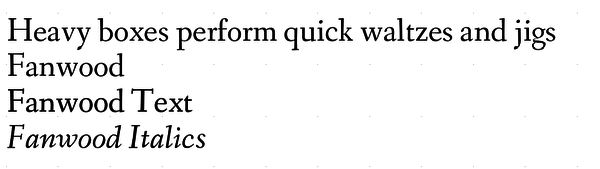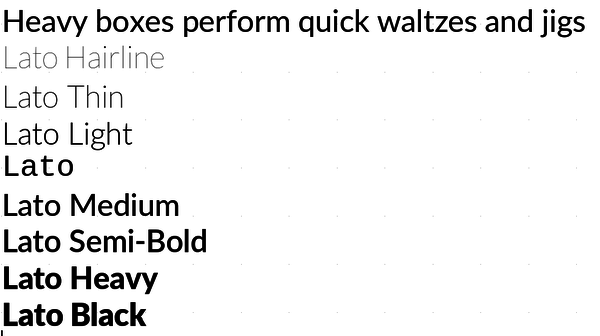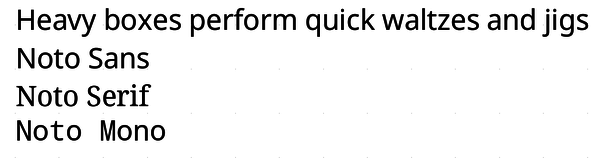
Useful and Innovative Free Fonts
Open Source Fonts
ByIf you are looking for a replacement for a proprietary font, open source fonts offer plenty of options.
Collecting fonts used to be expensive. The average font family cost several hundred dollars, which meant that you had to be selective. That changed overnight with the rise of open source fonts. Contrary to conventional wisdom, talented designers were perfectly willing to release their designs under a free license and to work in teams.
Today, there are still thousands of proprietary fonts for every free font. However, that still leaves hundreds of free-licensed fonts to choose from. Some are replicas of popular fonts or revivals of older designs, while others are original designs. The best free-licensed fonts can be as useful and innovative as any proprietary font. The days when “free fonts” were synonymous with “cheap and shoddy” are now a decade in the past. Below are some examples of the diversity that is available.
Fanwood
Fanwood (Figure 1) is designed by the prolific free font designer Barry Schwartz. Schwartz implies that Fanwood is inspired by Rudolph Ruzicka’s Fairfield, but it also bears a close resemblance to Eric Gill’s Joanna. In fact, when I moved to free fonts, I replaced Joanna with Fanwood as my branding font.
Like Joanna, Fanwood is a small, tight font. With Fanwood, 13 pages of Times New Roman or Liberation Serif convert to 10 pages of text. Yet despite its character size, Fanwood remains highly readable. Like Joanna, it includes one of the most beautiful italics available. Fanwood’s only drawback is that computers seem unable to display its kerning properly – on a screen some letters seem oddly spaced. Fortunately, the problem does not appear on a printed page.
Fanwood Text is also available; it appears darker on the page -- too dark on a printout without adjusting the line spacing. However, Fanwood Text works well on e-readers, which is its intended use.
Frederick Goudy Fonts
Frederick Goudy was the most influential American font designer in the early 20th century. Unfortunately, for some reason, his typefaces have largely fallen out of fashion, apart from a few fonts loosely based on his designs that include his name in theirs. This is a shame, because Goudy’s designs include many sturdy, practical fonts -- ones that are ideal for any large body of text.
Free font designer Barry Schwartz, who also created Fanwood and Prociono, has made something of a career of releasing versions of Goudy’s work, changing the original names to comply with licensing terms. Goudy Bookletter 1911 is based on Goudy’s Kennerley Old Style and features characters that fit together so well that no kerning is necessary. Except for the lowercase “t,” ascenders are tall, making for easy reading. It is easy to see why Schwartz thought this font worth reviving.
Schwartz’s Linden Hill is based on Goudy’s Deepdene. Its uppercase letters are almost twice the width of the lowercase letters, giving the font a distinctive look. Linden Hill also features a fully-designed italic that can be used by itself or as a substitute for a font whose italic is an afterthought.
Schwartz’s third Goudy-inspired design is Sorts Mill Goudy, which he describes as a revival of Goudy Old Style and Goudy Italic. Compared to Goudy Bookletter 1911 and Linden Hill, Sorts Mill Goudy has small, narrow characters that work well in a limited space.
Gentium
It can be said that Gentium (Figure 3) is the font that started the free font movement. Designed by Victor Gaultney, Gentium has a calligraphic feel to its letters that adds a slight degree of casualness to a body of text, and it was one of the first free fonts with a high standard of design.
In addition, Gentium was one of the first fonts released under the SIL Open Font License, whose principal author is Gaultney. This license reconciled a copyleft license with the wish of font designers to receive credit for their work and not to be bothered by poorly designed knockoffs, since the license requires modified versions to have their own names.
Lato
Lukasz Dziedzic’s Lato (Figure 4) is a sans serif font with nine weights from Hairline to Black, making it suitable for every conceivable use. For instance, Lato and Lato Light could be used for setting text in a modern style, Lato Demibold or Black for headings, and Lato Black for titles or brochures. With this variety, it is easy to give a document a uniform look. At all weights, Lato has a simple, functional look.
If anything, the number of weights is excessive. In particular, Lato Hairline has characters so thin that they almost disappear on the screen or when printed at low resolutions. Still, used cautiously, Lato is one of the most versatile modern fonts.
Mint Spirit
Several Linux projects created their own font for branding: Gnome created Cantarell, KDE created Oxygen, and Ubuntu created Ubuntu. But of all these fonts, I am fondest of Mint Spirit (Figure 5), which was unofficially designed to complement Linux Mint.